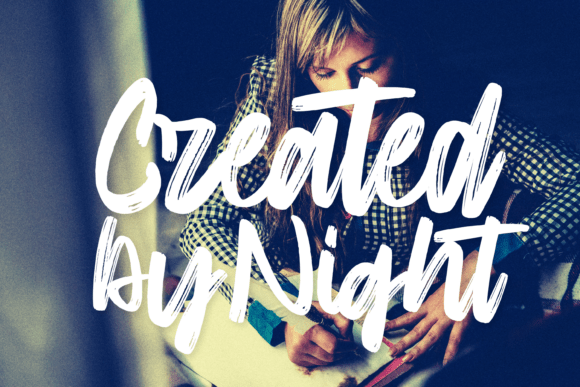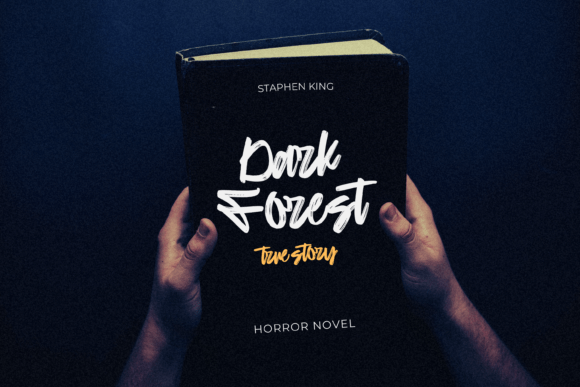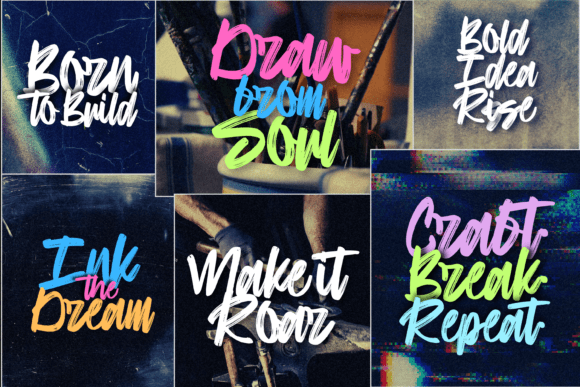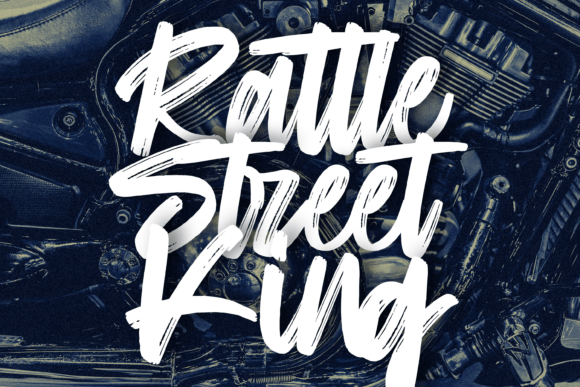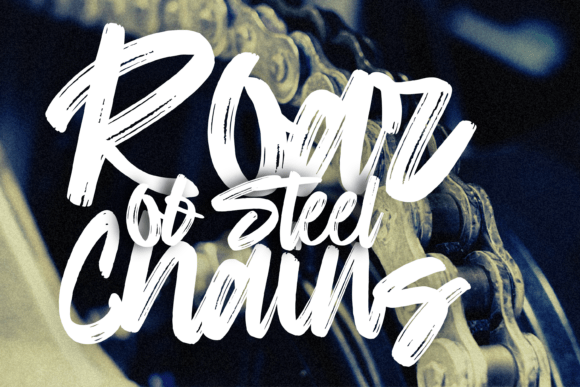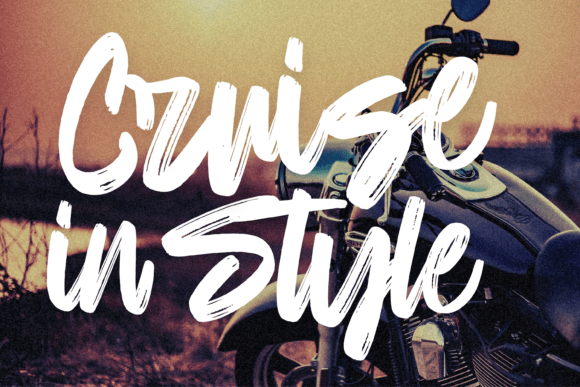
Introduction to Morhita Ghost Font
As a designer, have you ever stared at a blank canvas, struggling to find the perfect font to bring your creative project to life? We’ve all been there. But what if you could add a touch of authenticity and boldness to your designs with just a few strokes of a virtual brush?
Enter Morhita Ghost Font, a stunning brush script that exudes rugged charm and personality. Crafted with real brush pen strokes, this font delivers a natural texture that’s simply irresistible. Whether you’re working on a clothing design, poster, book title, or branding project, Morhita Ghost Font is the perfect design resource to elevate your work and make it stand out from the crowd.
Key Features of Morhita Ghost Font
- Unique, high-quality design suitable for creative projects and designs with transparent backgrounds.
- Features a minimalist, ghostly aesthetic with intricate details, perfect for adding a touch of elegance to designs.
- Designed to be highly legible, making it suitable for use in various font sizes, from small to large.
- Comes in a single weight, providing a cohesive and streamlined visual experience.
Honest Review: Morhita Ghost Font
I recently stumbled upon the Morhita Ghost Font, and I must say, it’s been a game-changer for my creative projects. The font is free to download, which is always a bonus, and the quality is top-notch. I was blown away by the level of detail and the smooth, elegant lines.
- ✨ The Morhita Ghost Font has a transparent background, making it perfect for overlaying on images or videos.
- ✨ The font is highly customizable, allowing me to adjust the size, color, and opacity to fit my design needs.
- ⚠️ The font is not suitable for large body text, as it can be difficult to read.
- ⚠️ The font is not as versatile as some other fonts, and may not be suitable for every design project.
Overall, I’m thoroughly impressed with the Morhita Ghost Font. It’s a high-quality design resource that’s perfect for adding a touch of elegance to your creative projects. If you’re looking for a unique and stylish font, I highly recommend giving it a try.
Tips for Getting the Most Out of Morhita Ghost Font
To get the most out of the Morhita Ghost Font, use it on a transparent background to create a high-quality, ghostly effect. Experiment with different font sizes and styles to achieve the desired look.
The Morhita Ghost Font is ideal for creative projects that require a touch of elegance and sophistication. Use it in invitations, posters, and social media graphics to add a unique and eye-catching element. With its transparent background and high-quality design, the Morhita Ghost Font is a valuable design resource that can elevate any project.
The Morhita Ghost Font is a high-quality design resource that’s perfect for creative projects. Its transparent background makes it easy to customize and combine with other design elements. Feel free to use it in your next project, whether it’s a logo, poster, or website.